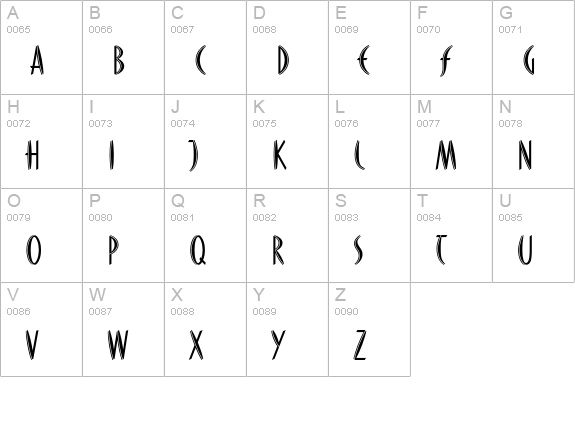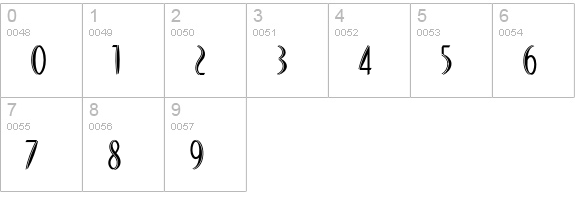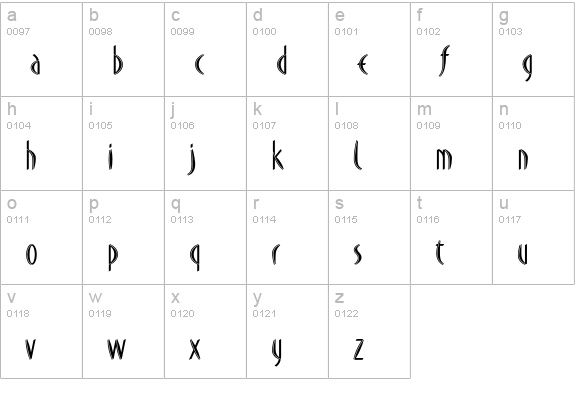
DuMoore-Inline Font Details
DuMoore-Inline is a stylish and modern font that exudes sophistication and creativity. Its sleek lines and elegant curves make it perfect for a wide range of design projects, from branding to editorial layouts. The inline detailing adds a unique touch, giving your text a sense of depth and dimension. What sets DuMoore-Inline apart is that it is completely free to download at FontsMarket.com. This means you can easily access this beautiful font to elevate your designs without any cost. Whether you're a seasoned designer or just starting out, DuMoore-Inline is a versatile and eye-catching font that will make your projects stand out. Download it today and add a touch of elegance to your creations.